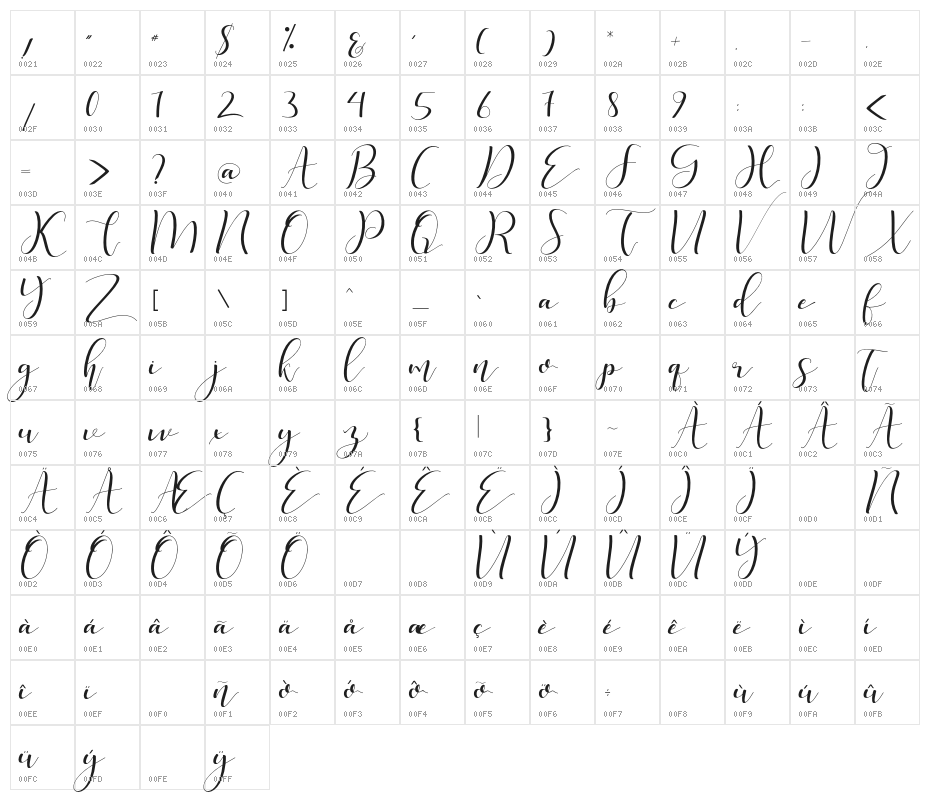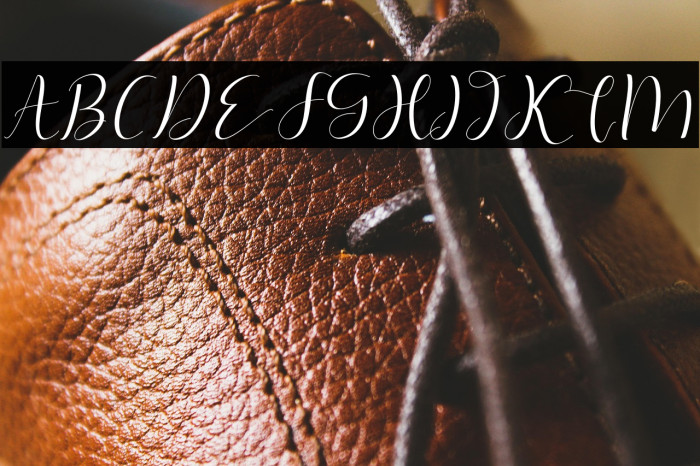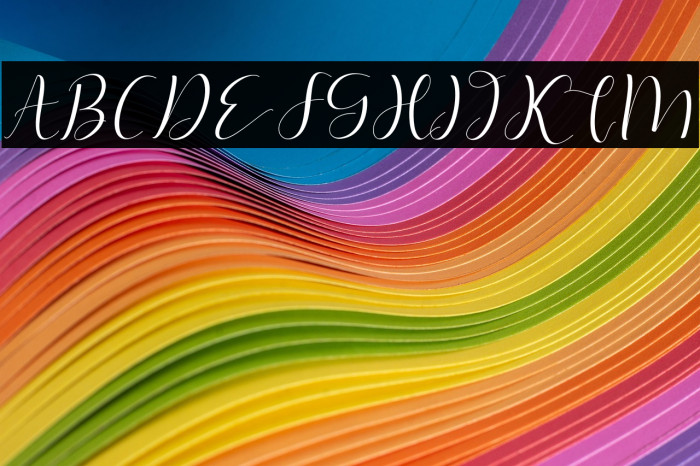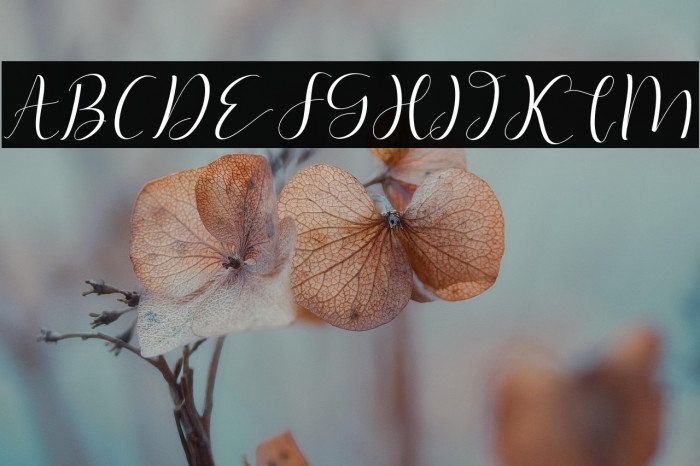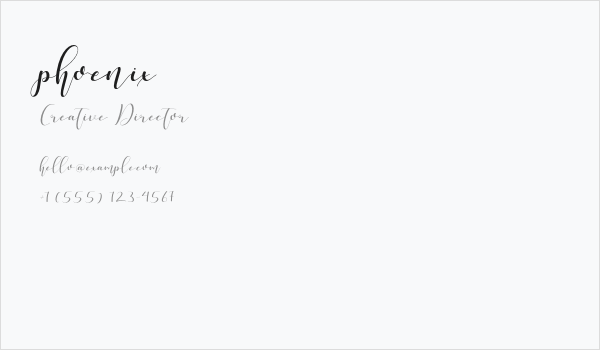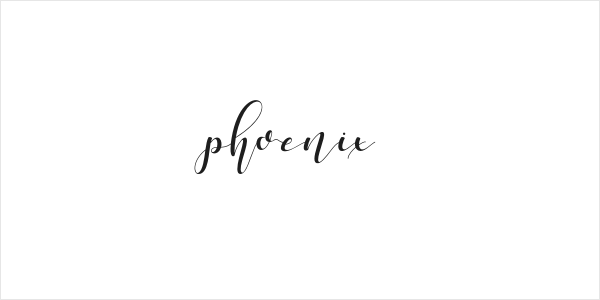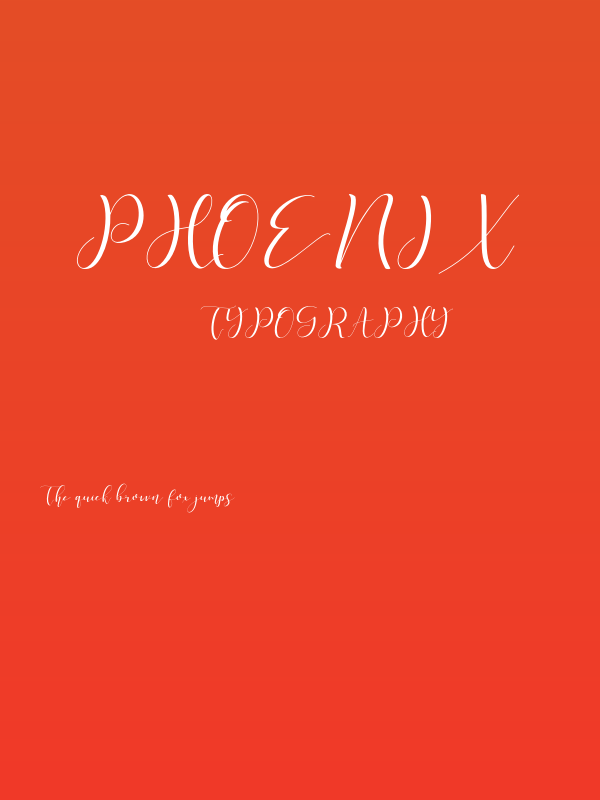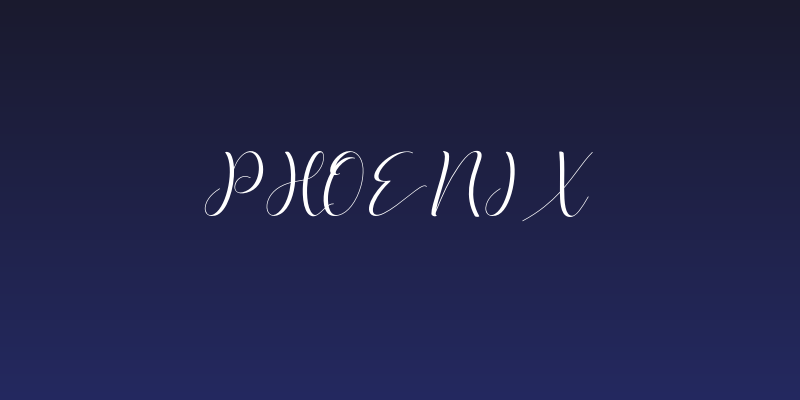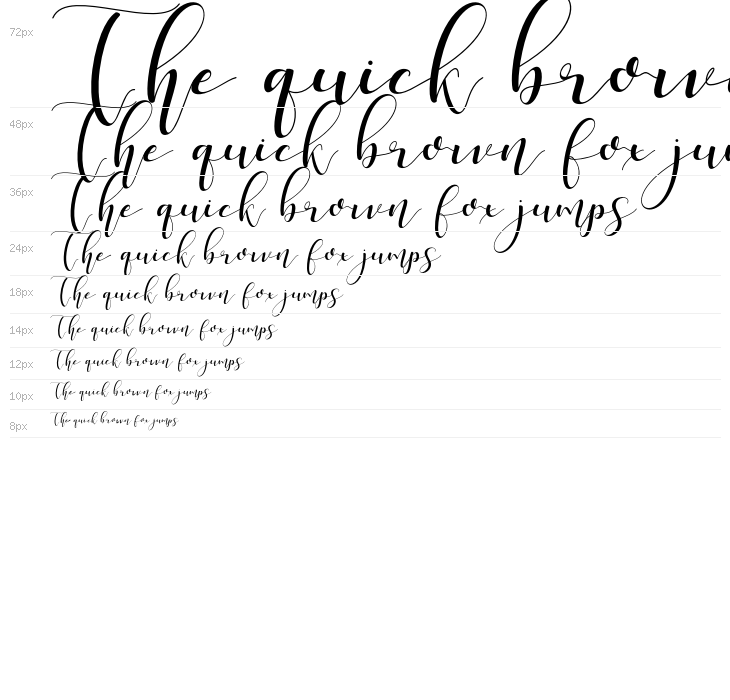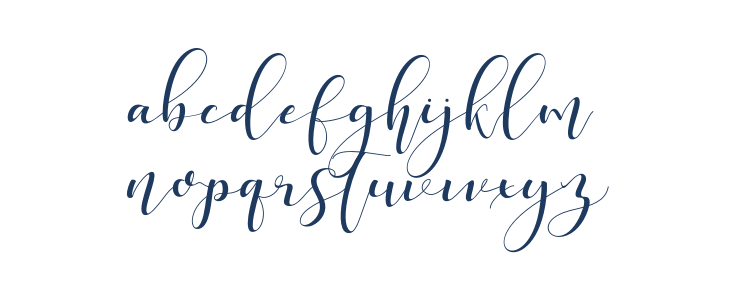
phoenix Font
phoenix Description
This elegant script font features flowing, interconnected letters that exude a sense of sophistication and grace. The uppercase letters are tall and slender, with delicate flourishes that add a touch of whimsy. The lowercase letters maintain a consistent flow, with some characters extending into beautiful loops and swirls. The numerals are stylish and maintain the same elegant curves as the letters. Special characters are thoughtfully designed to complement the overall aesthetic. This font is perfect for projects that require a personal, artistic touch, such as invitations, branding, or decorative prints.